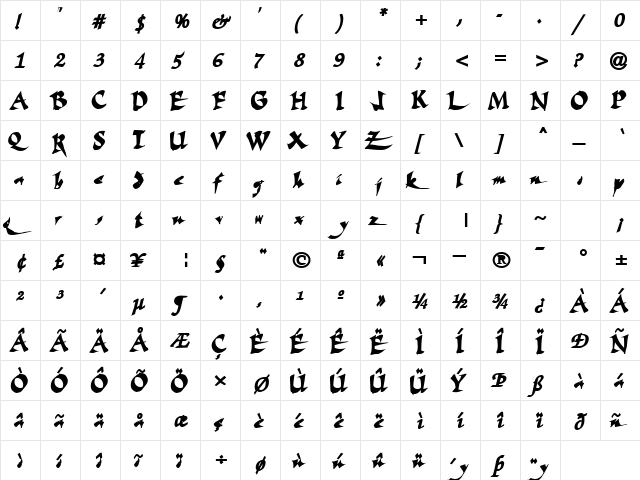
FateScriptText29 Bold Font Preview
Design Context for FateScriptText29 Typeface
FateScriptText29 flows with the natural rhythm of handwritten lettering, making it ideal for designs that call for warmth and personal expression. Its bold stroke weight gives it real presence on the page.
Font Pairing: Combine FateScriptText29 with a simple geometric sans for maximum contrast — the tension between flowing curves and clean structure is a classic typographic pairing.
Pro Tip: Pair FateScriptText29 with a clean sans-serif for supporting text. The contrast between fluid script and geometric structure creates an elegant typographic hierarchy.